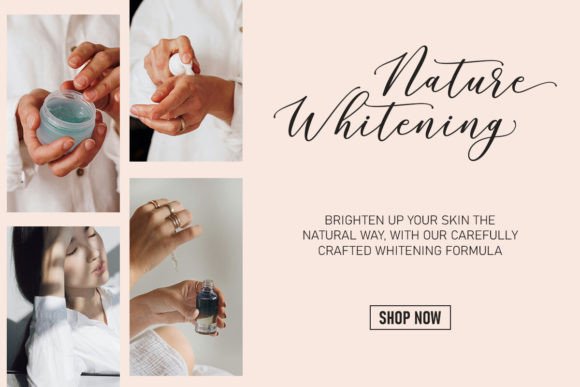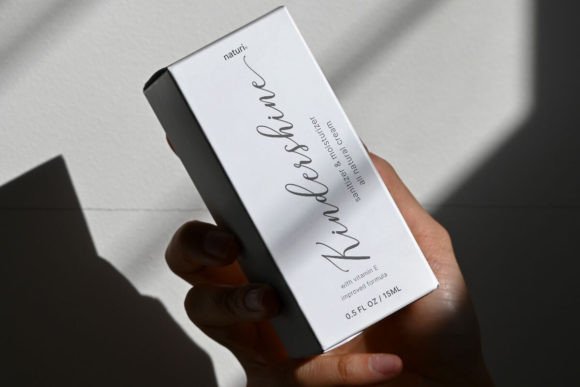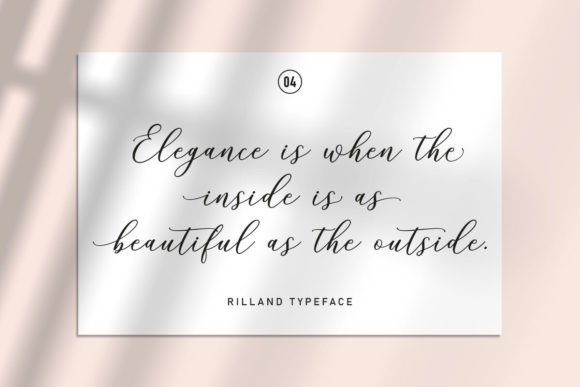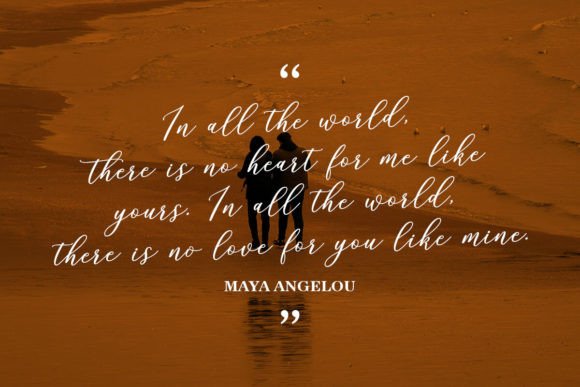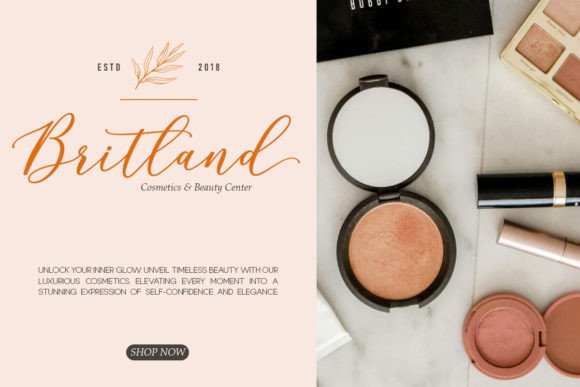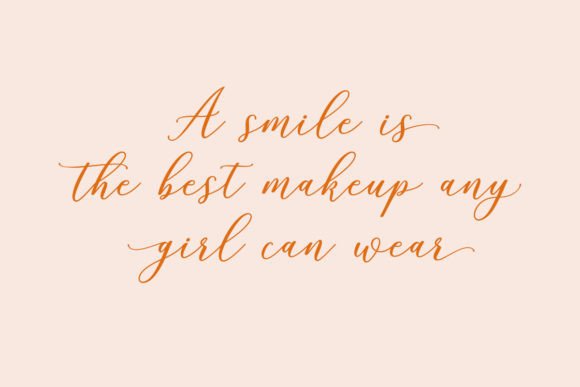
Introduction to Rilland Font
Rilland is a Script font that combines classic elements with a modern touch.
This font is designed to give an elegant and classy impression, suitable for various applications Rilland offers an elegant and stylish character, with subtle details that give a premium impression, which is used for various design purposes, from wedding invitations, and magazines, to logos and each letter has distinctive details, giving a unique and memorable appearance.
Rilland Font offers exceptional quality and versatility, making it a valuable addition to your design toolkit. Whether you’re creating for personal projects or commercial use, Rilland Font delivers professional results.